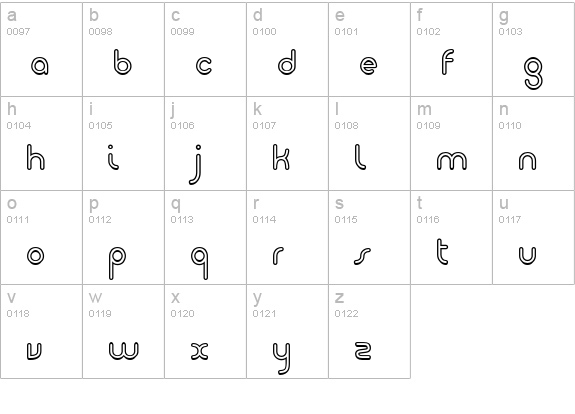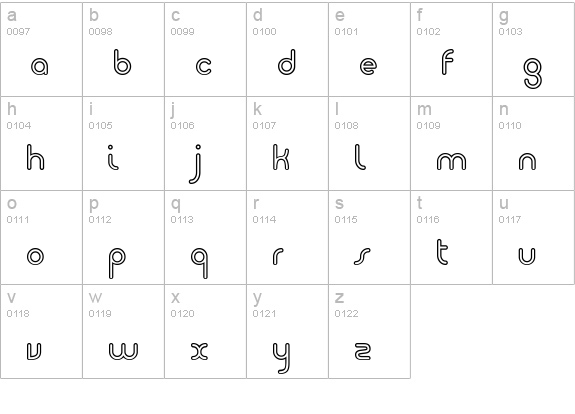
Giro Outline Font Details
Giro Outline font is a stunning typeface that combines elegance with a contemporary twist. Its unique design features clean lines and geometric shapes, making it the perfect choice for modern projects that require a touch of sophistication. Whether you're designing logos, headlines, or posters, Giro Outline will make your text stand out and leave a lasting impression. This font offers a wide range of uppercase and lowercase letters, numerals, punctuation marks, and special characters, ensuring versatility and flexibility in your designs. Its outline style adds an extra dimension to your typography, creating a trendy and eye-catching effect. One of the best things about Giro Outline font is that it is free to use. You can easily download it from FontsMarket.com, a reputable source for high-quality fonts. This means that you can enhance your designs without breaking the bank, making Giro Outline a valuable asset for both professional designers and enthusiasts. With its sleek and contemporary appearance, Giro Outline font is suitable for a variety of design projects, including branding, packaging, advertising, and more. Its clean and legible characters make it readable in both small and large sizes, ensuring that your message is effectively communicated. In addition to its stylish design, Giro Outline font is also highly accessible. It is compatible with a wide range of devices and software, making it easy to integrate into your workflow. Whether you're working on a website, a print project, or even a mobile application, Giro Outline font will adapt seamlessly to any platform. Overall, Giro Outline font is a must-have for designers looking to add a touch of elegance and modernity to their projects. Its clean lines, geometric shapes, and free availability make it a valuable resource that will elevate your designs to new heights. Download Giro Outline font today from FontsMarket.com and embark on a creative journey filled with endless possibilities.